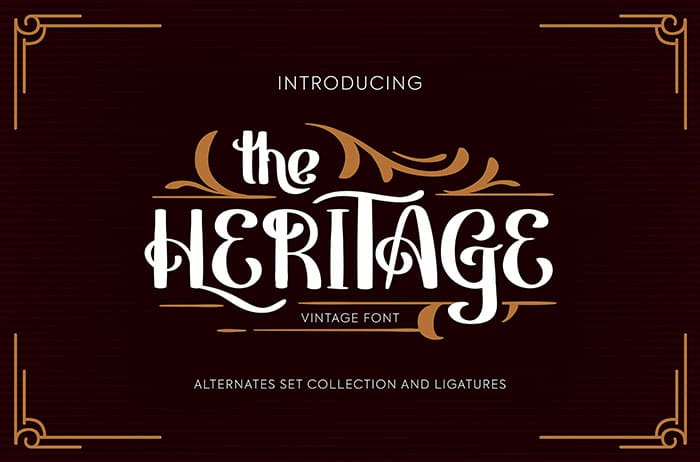
Heritage Vintage Font feels playfully nostalgic and delivers an incredible vintage aesthetic. Use this font to add that special retro touch to any design idea you can think of. Thanks to Vunira Studio for sharing this font! Take a look at this portfolio for more of his stunning fonts.